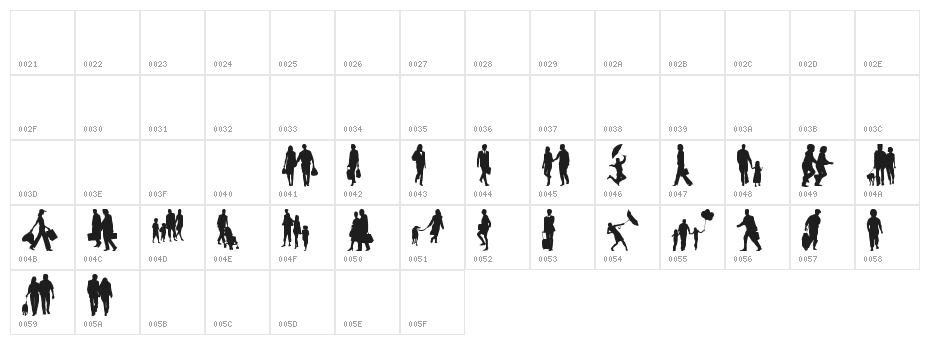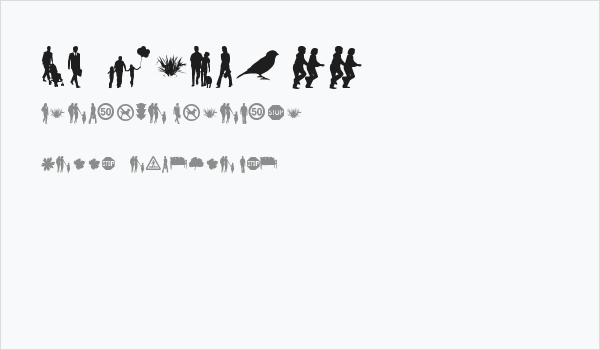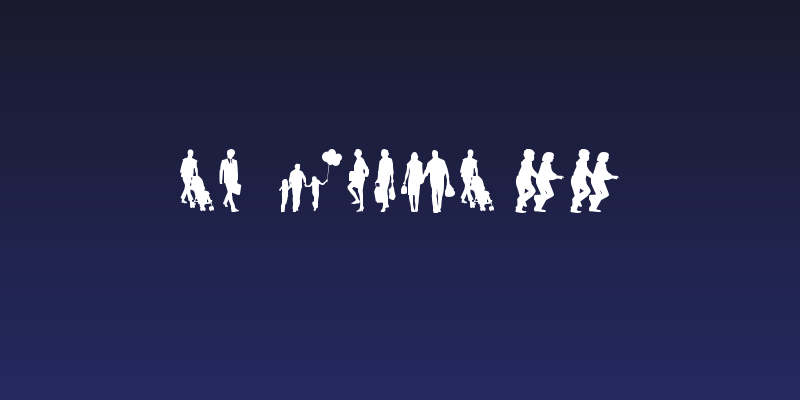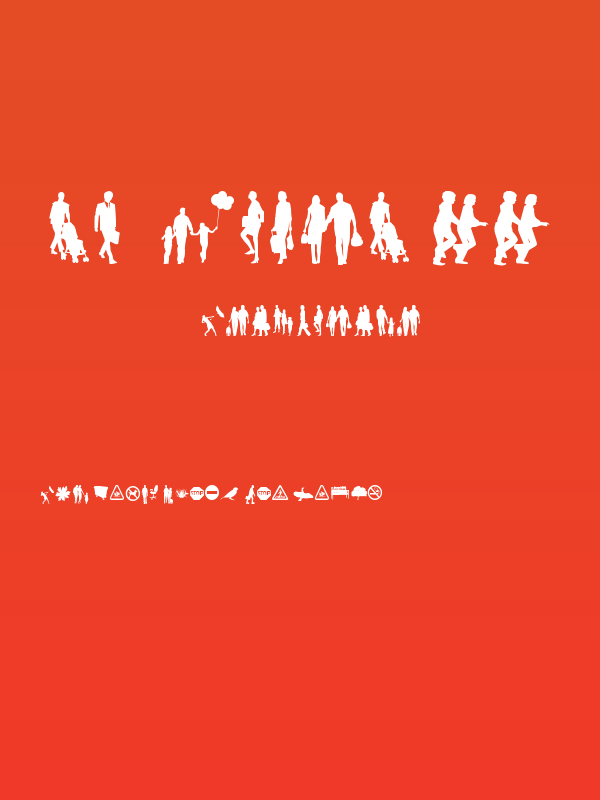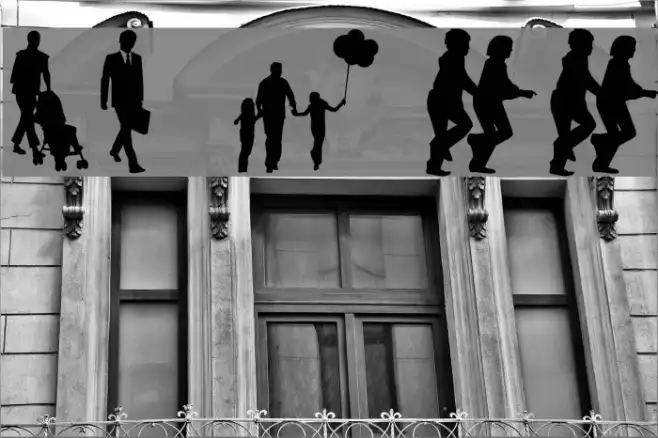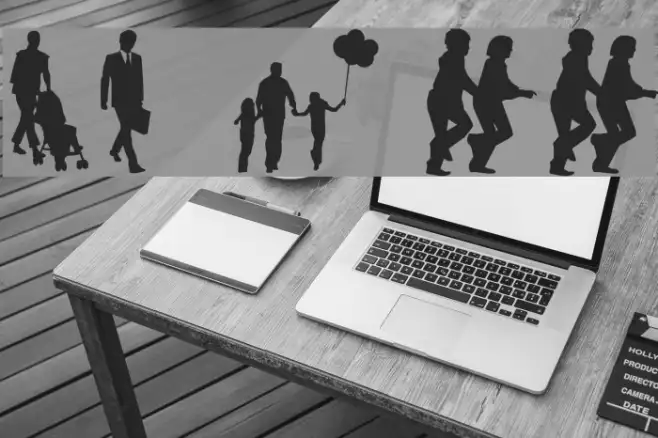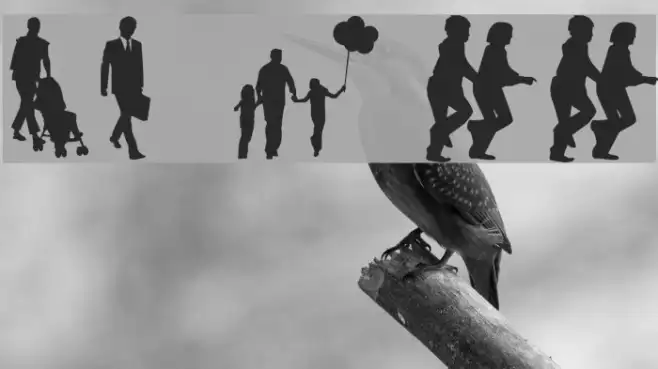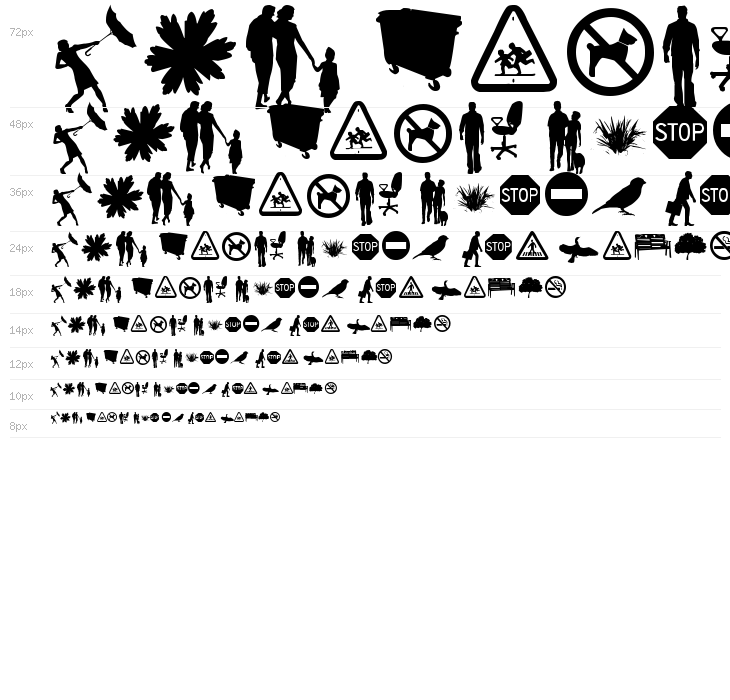
ND_Urban II Font
ND_Urban II Description
A collection of urban-themed pictograms featuring silhouettes of people, street furniture, plants, birds, and various traffic and informational signs, all rendered in solid black with clear, recognizable shapes.
| Overall Style | Modern, Functional, Pictographic |
| Use Case | Signage, Icons, Infographics, Maps |
| Proposed Projects | Wayfinding systems, public signage, infographics, urban planning presentations, educational materials. |